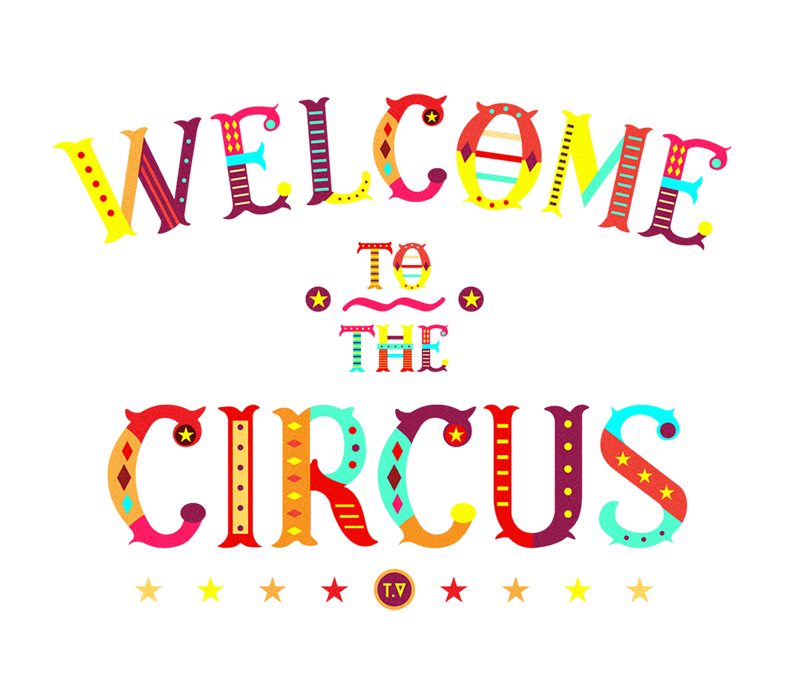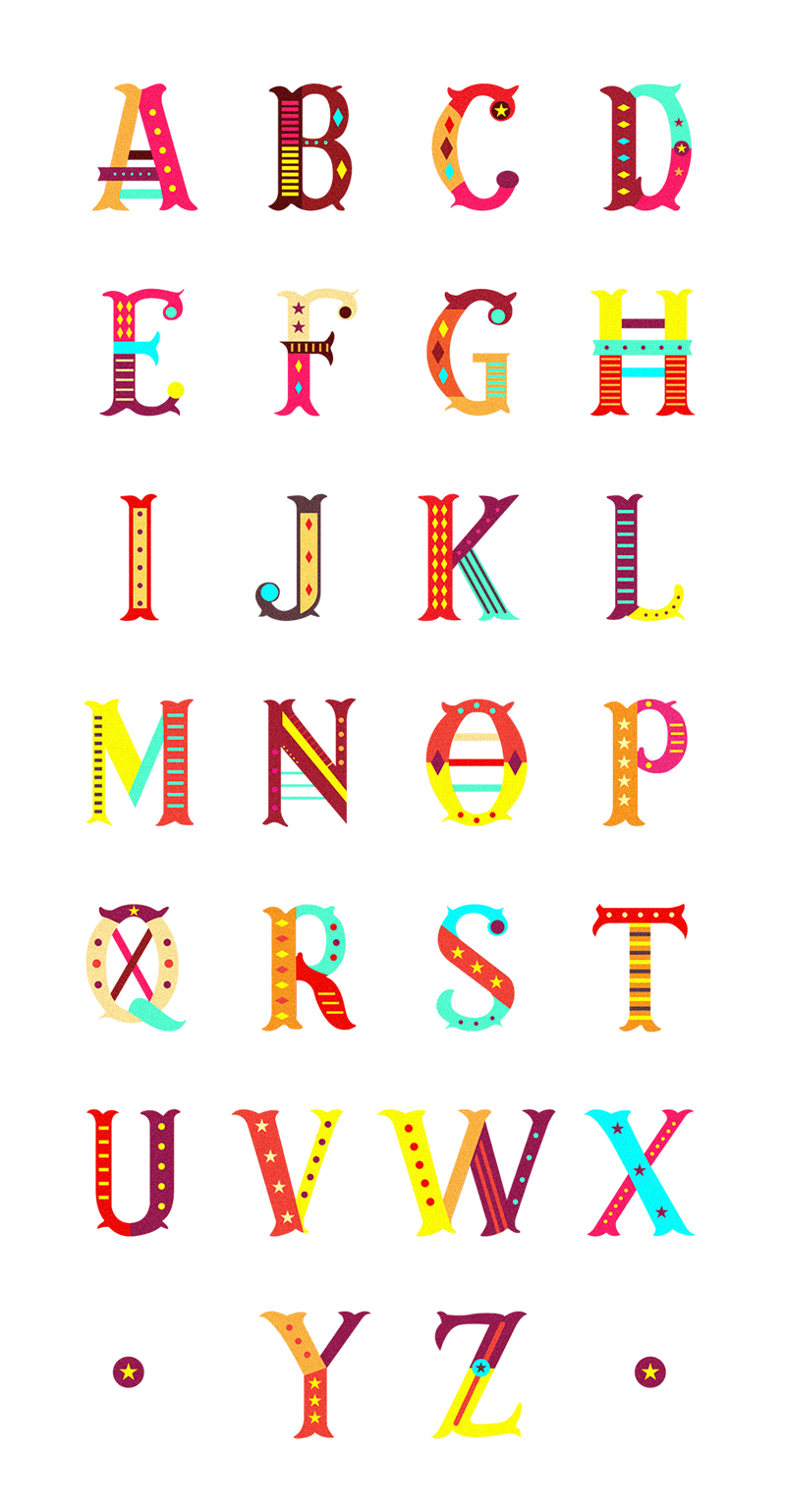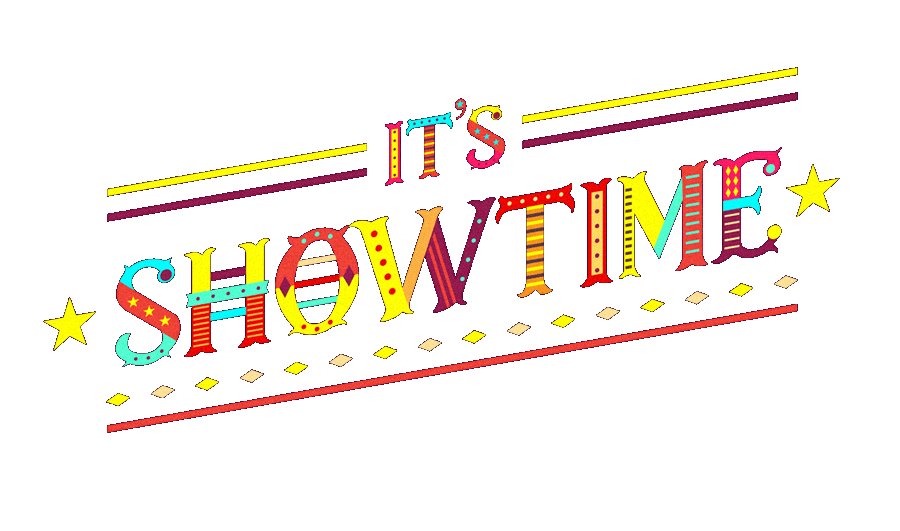
CIRCO was designed by Tano Veron from Buenos Aires, Argentina. CIRCO is a typeface made for fun, inspired by the magic of circus, full of colors and joy. Free for personal use!